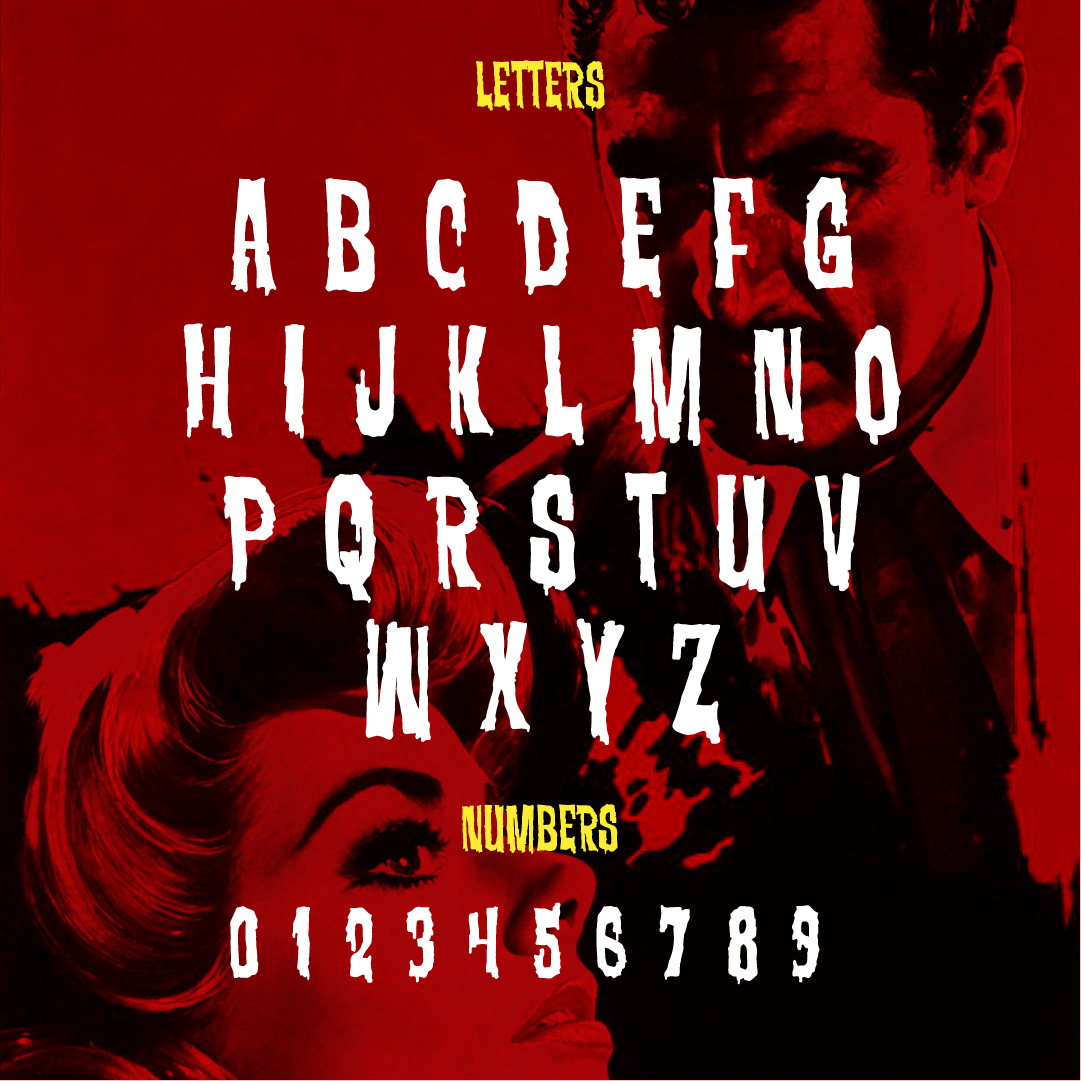
Morte Violenta – Giallo Horror Font
The perfect sinister 70s horror font with delightfully dark and macabre elegance.
Ah, welcome, my macabre minions! The Morte Violenta horror font has arrived from the depths of the crypt, and let me tell you, this typeface is to die for! Inspired by the eerie, yet exquisite design found in those blood-curdling Italian Giallo films of the 1970s, this dark horror font is the perfect blend of sinister style and haunting elegance. If you’re looking to evoke the dread and allure of vintage horror, Morte Violenta will leave your audience trembling in terror… and fascination!
With sharp edges and dramatic flourishes, it’s a chilling tribute to the films that thrilled and terrified audiences with their bold posters and tantalizing titles. A touch of class, a hint of macabre typography—Morte Violenta will bring the darkness to life in your designs!
Features:
• Inspired by the bold typography of 1970s Italian Giallo movie posters
• Sinister curves and elegant, macabre details for a truly horrifying aesthetic
• Perfect for titles, headers, and any project that needs a touch of vintage terror
• Carefully crafted by Remedy667 for true fans of horror typography
Get ready to carve your mark with Morte Violenta, the ultimate sinister font for any horror lover!
Whether you’re designing a horror movie poster, creating spooky graphic designs, or adding a vintage terror font to your project, Morte Violenta brings a touch of macabre elegance that will elevate your work to chilling new heights. This 70s horror font offers the perfect balance of eerie charm and sharp detail, making it the ideal choice for any project that needs to evoke a sense of dark mystery or sinister style. With its vintage Giallo inspiration, Morte Violenta is not just a font—it’s a journey into the heart of horror typography that will make your designs unforgettable.
Get your hands on this Giallo-inspired font and start creating spine-tingling titles and horror-themed designs that will haunt your audience long after they’ve seen them.